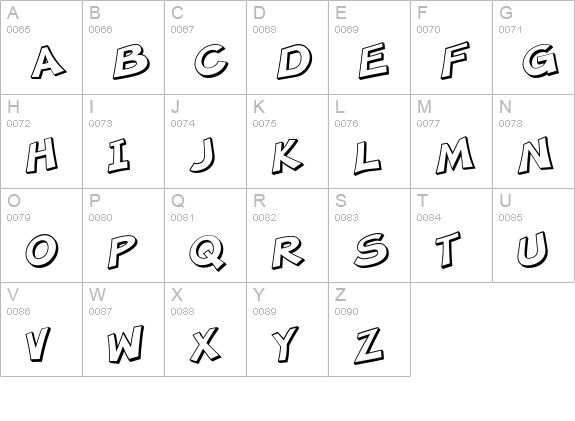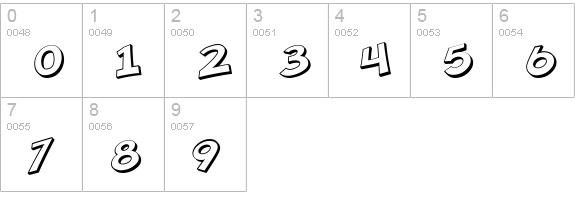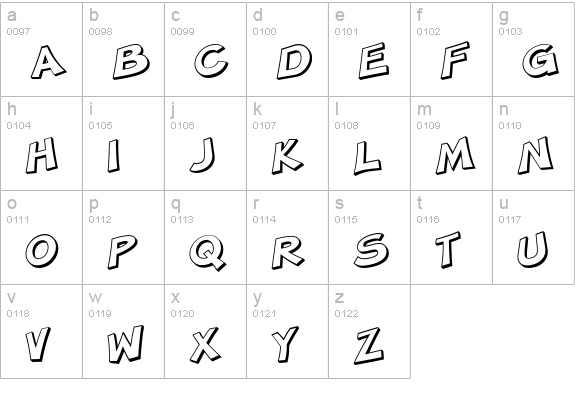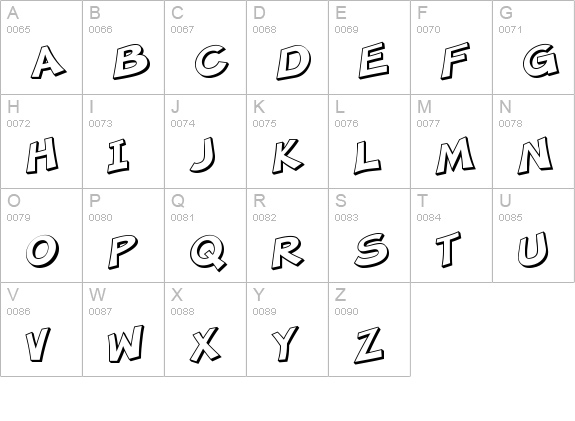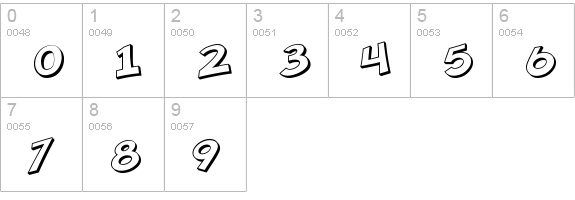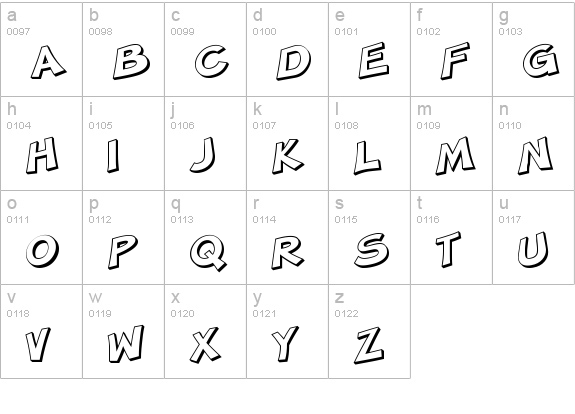
SF Minced Meat Shaded Font Details
SF Minced Meat Shaded is a stunning display font that effortlessly combines elegance and uniqueness. With its intricate design and sharp edges, this font adds a touch of sophistication to any project it graces. Each letter is meticulously crafted to create a visually captivating effect, making it perfect for eye-catching headlines, logos, or any creative design that demands attention. The distinct shading effect of SF Minced Meat Shaded brings depth and dimension to your text, giving it a three-dimensional appearance that is both striking and visually appealing. This font exudes a sense of modernity and creativity, making it ideal for projects that require a contemporary and edgy look. Not only does SF Minced Meat Shaded possess a captivating aesthetic, but it also offers the convenience of being freely available to download. You can easily access this font at FontsMarket.com, a trusted source for high-quality fonts. By taking advantage of this offer, you can enhance your designs without any additional cost. Whether you're a graphic designer, a creative professional, or simply someone who appreciates beautiful typography, SF Minced Meat Shaded is a must-have font in your collection. Its versatility and striking appearance make it perfect for a wide range of projects, from branding and advertising to packaging and invitations. So, don't miss out on the opportunity to elevate your designs with SF Minced Meat Shaded. Download it for free at FontsMarket.com and let your creativity soar with this captivating and visually stunning font.